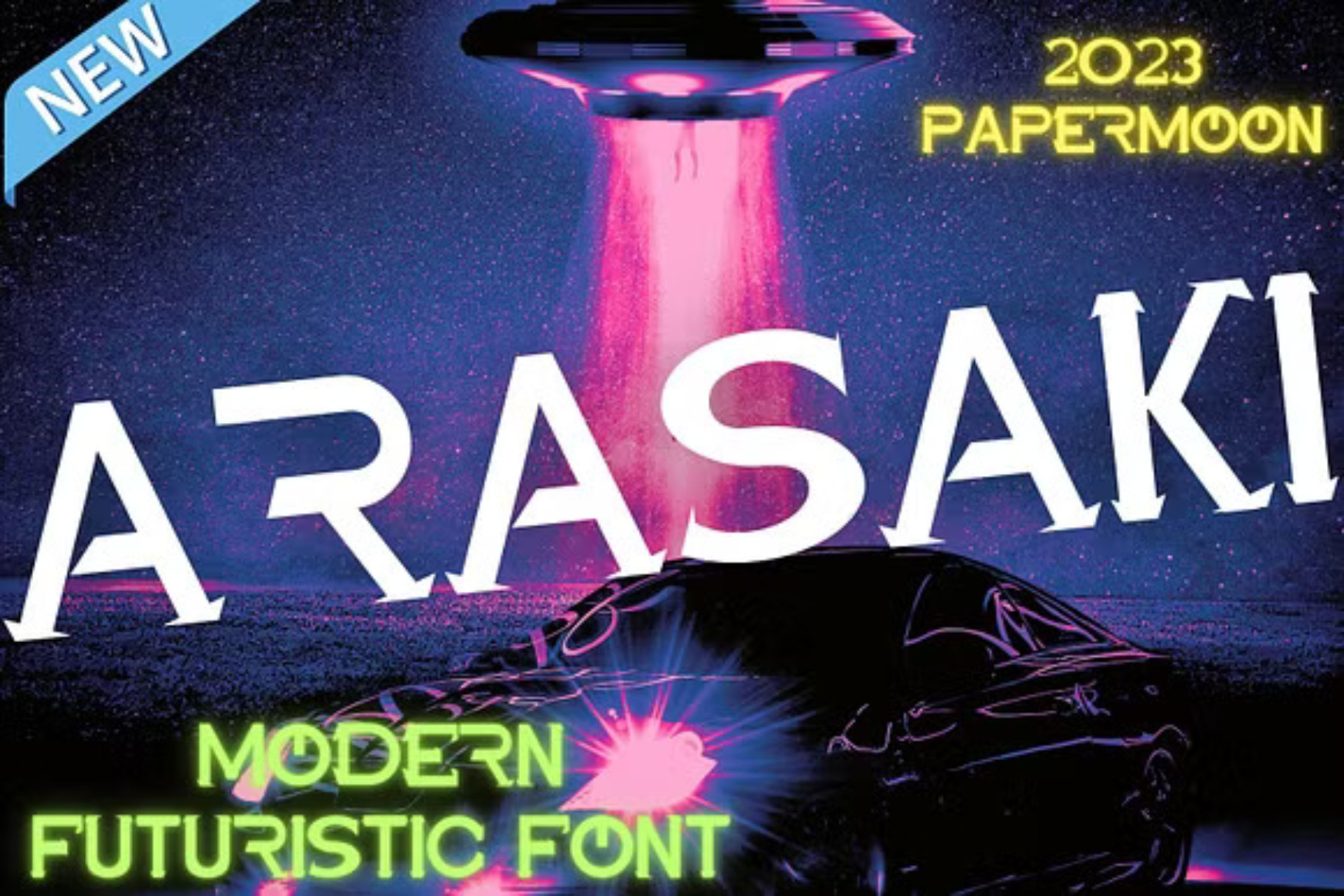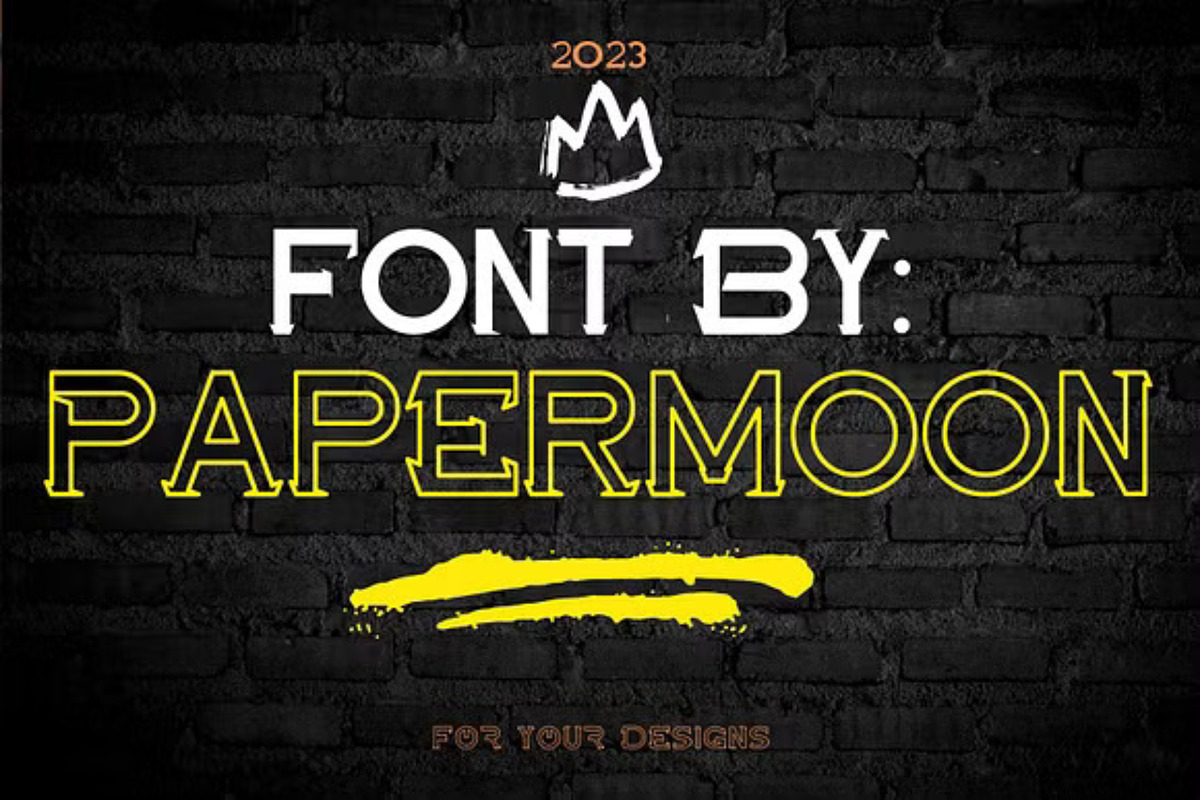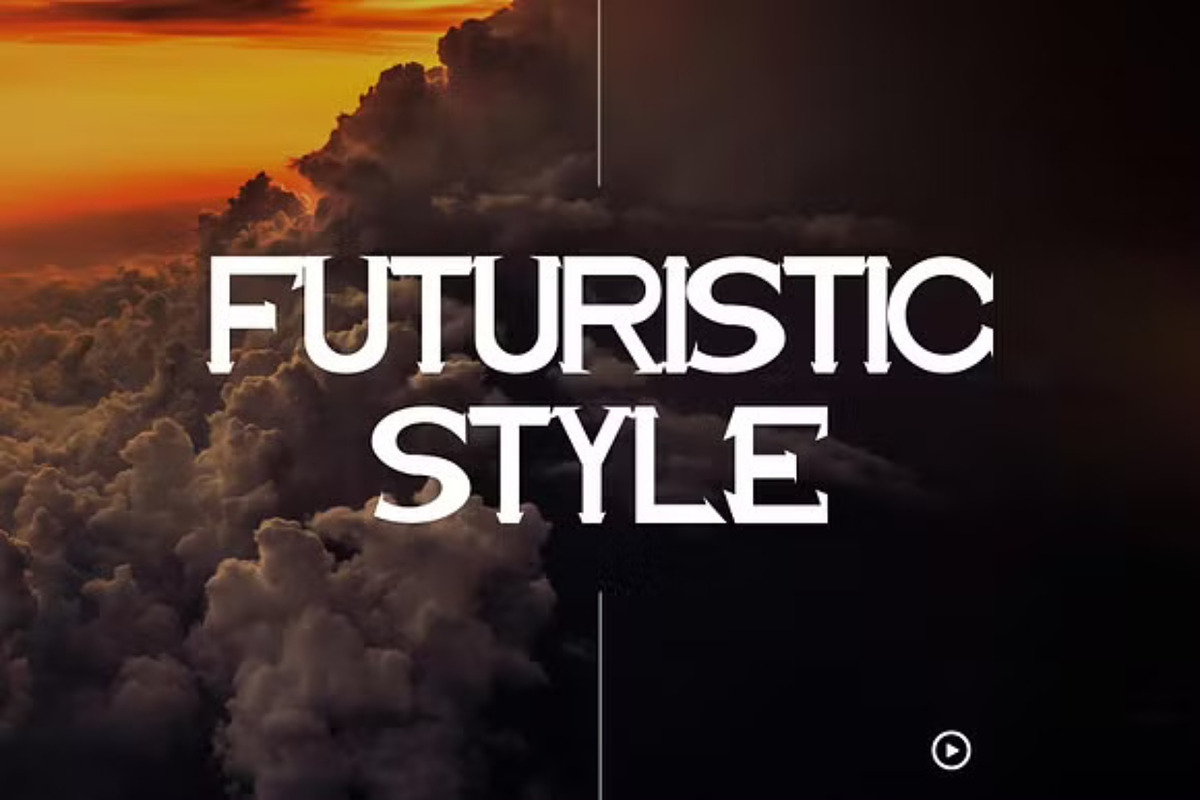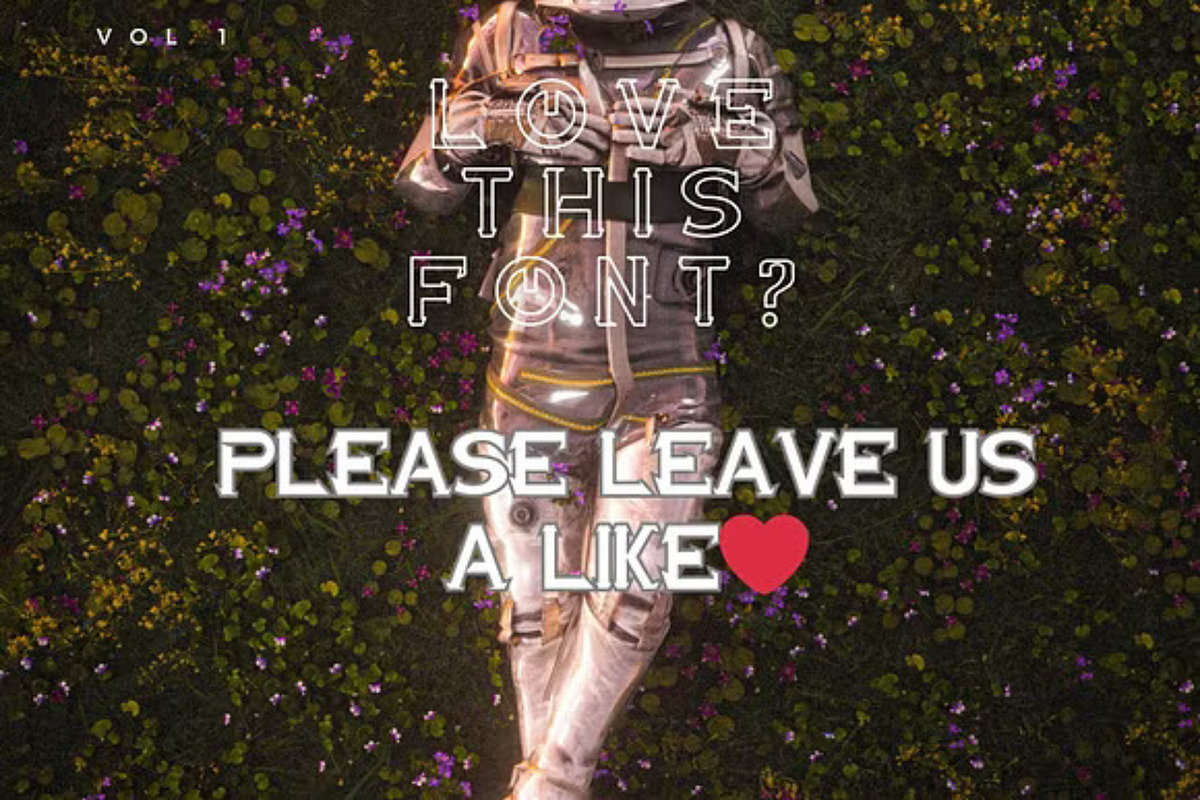
Arasaki Modern Futuristic Font
Introducing Arasaki Font: A Futuristic Typeface for Modern and Dynamic Designs
Arasaki is a contemporary font designed with a unique, futuristic aesthetic that brings a modern edge to any project. Its versatility allows it to be used across a variety of industries, from startups, technology, and real estate to finance, marketing, science, space, and more. With an extended license, the creative opportunities are endless, enabling you to design branding elements (logos, stationery, business cards, letterheads, folders, etc.), promotional materials (flyers, brochures, postcards), digital marketing assets (banners, ads, covers), personal invitations, magazines, websites, and countless other projects.